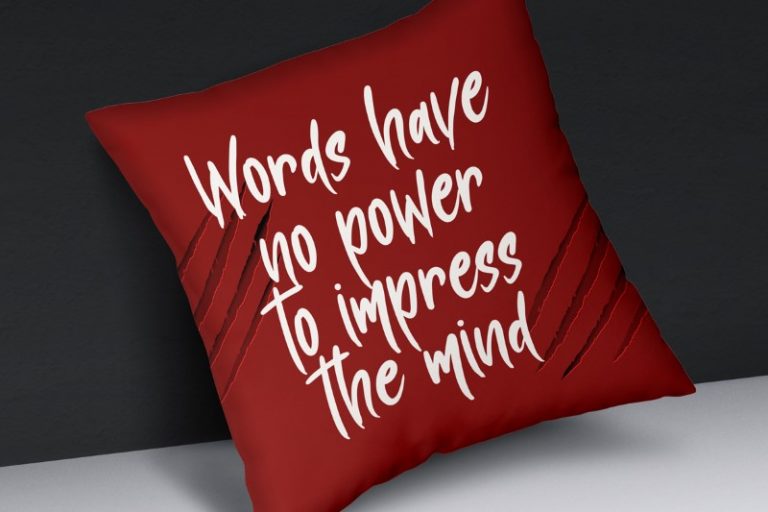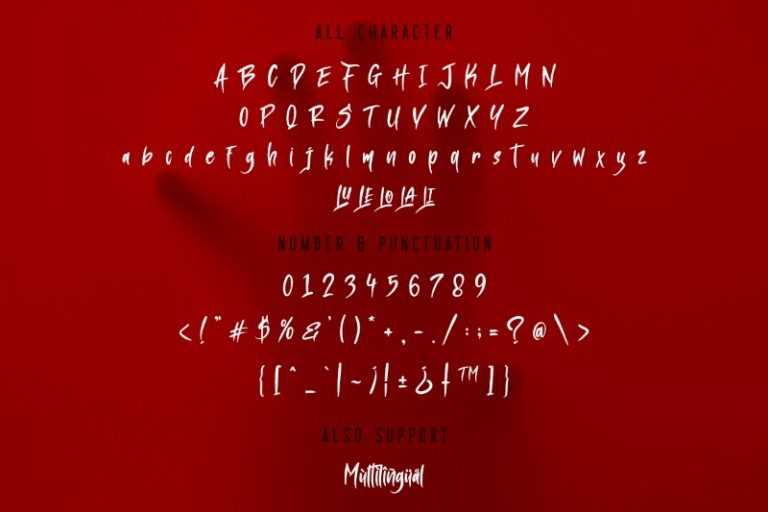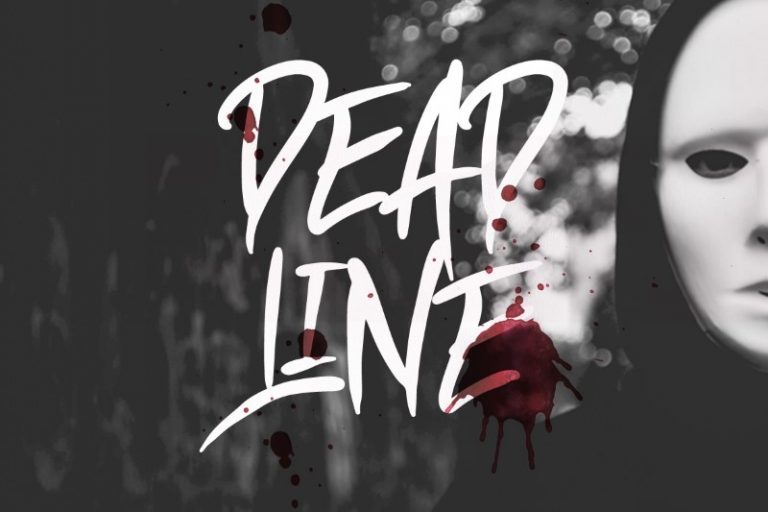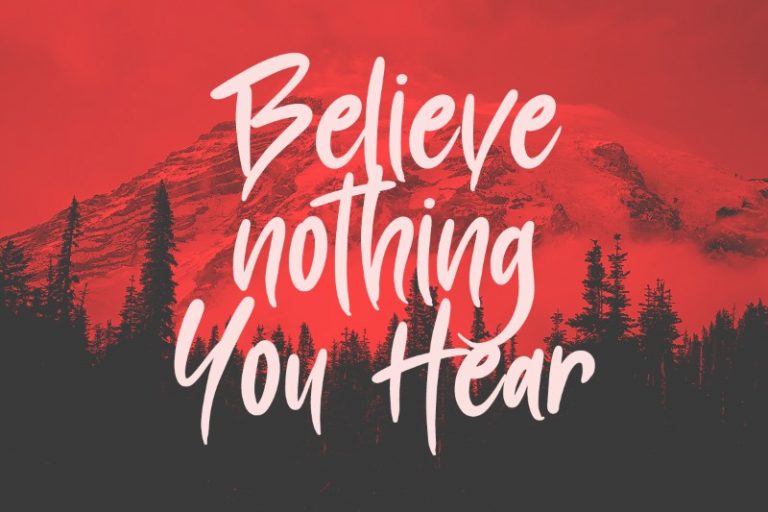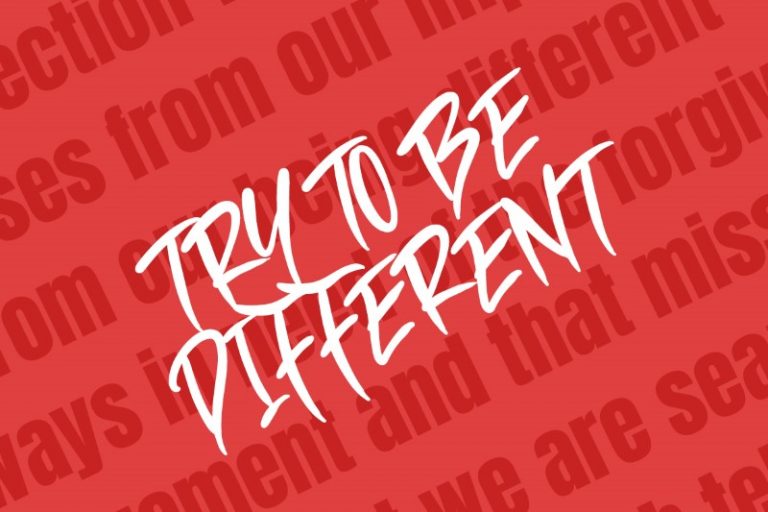
Blade Stroke
Introducing Blade Stroke Font. Blade Stroke is a Graffity clean brush font . Made with naturally brush. The font will make your design more beautiful and powerful. This font is suitable for any design like branding, quotes, t-shirt printing and etc. I hope you enjoy it !! Thanks for visiting and downloading my font!
• Accents (Multilingual Characters)
• Numerals and Punctuations (OpenType Standard)